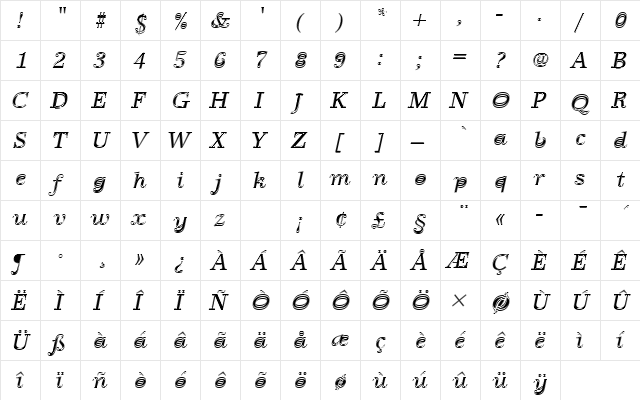
URWAntiquaTRegItaIn1 Regular
Design Context for URWAntiquaTRegItaIn1 Typeface
URWAntiquaTRegItaIn1 is a composed and adaptable typeface that performs quietly and consistently across a wide range of design contexts.